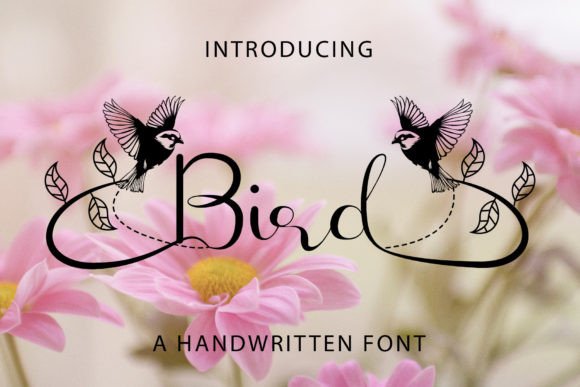
Introducing Bird Font, the handwritten font that's perfect for adding a touch of elegance and charm to your designs. Whether you're creating wedding invitations, thank you cards, quotes, greeting cards, logos, or business cards, Bird Font will make your words stand out with its stylish and incredibly elegant design.
With its beautiful curves and delicate details, Bird Font is sure to capture the attention of your readers. It's perfect for adding a personal touch to your projects, and it's sure to make a lasting impression.